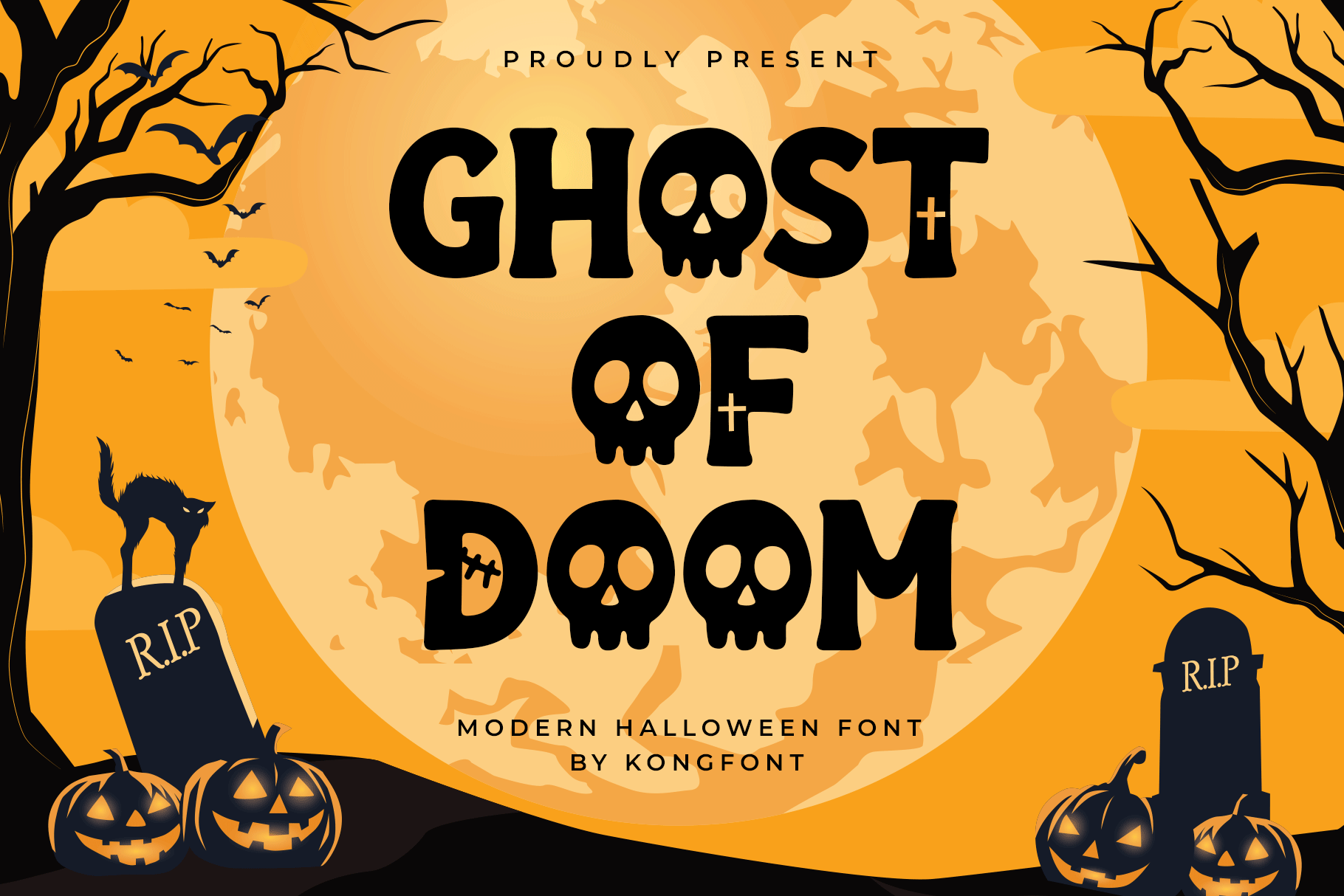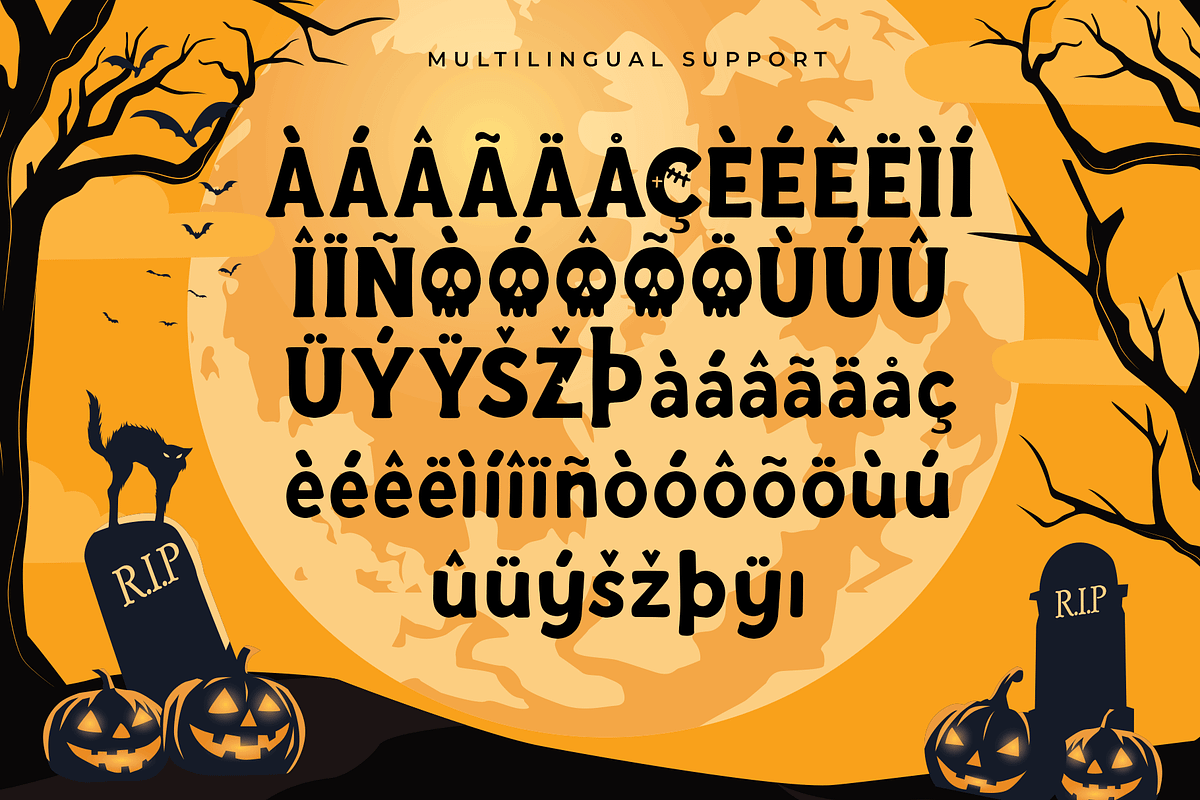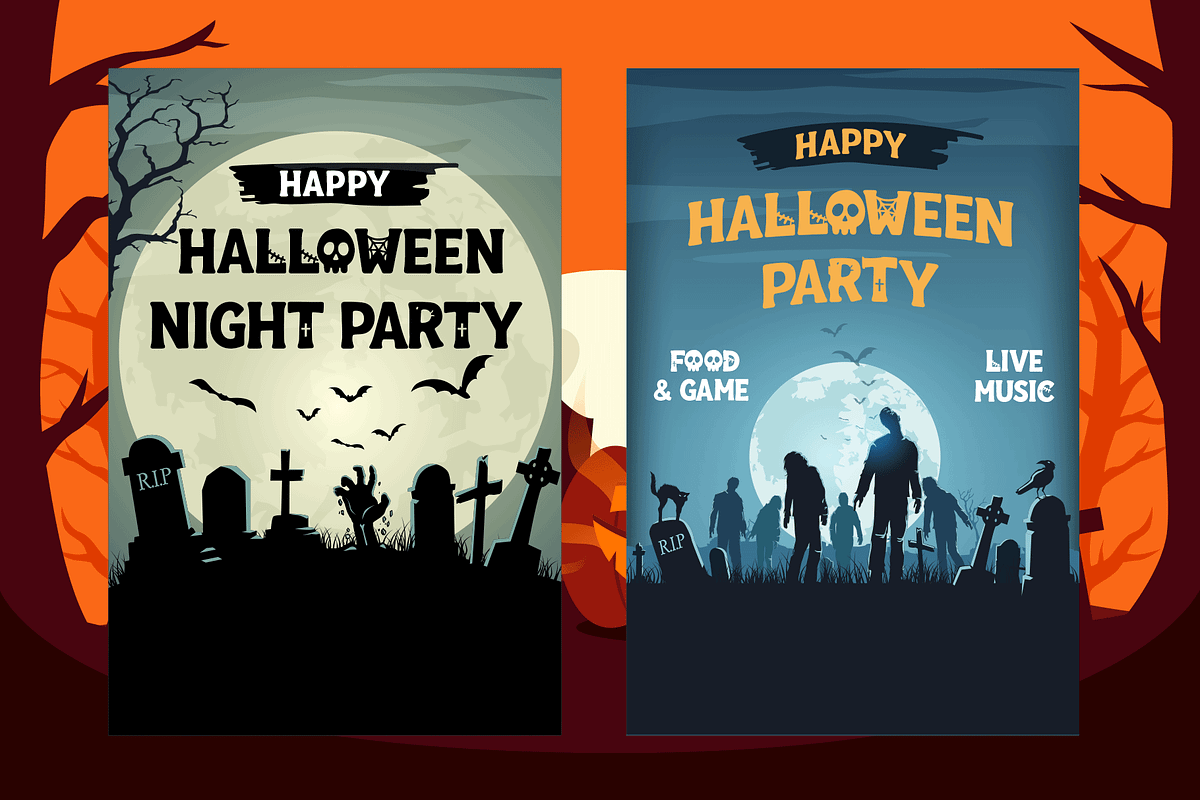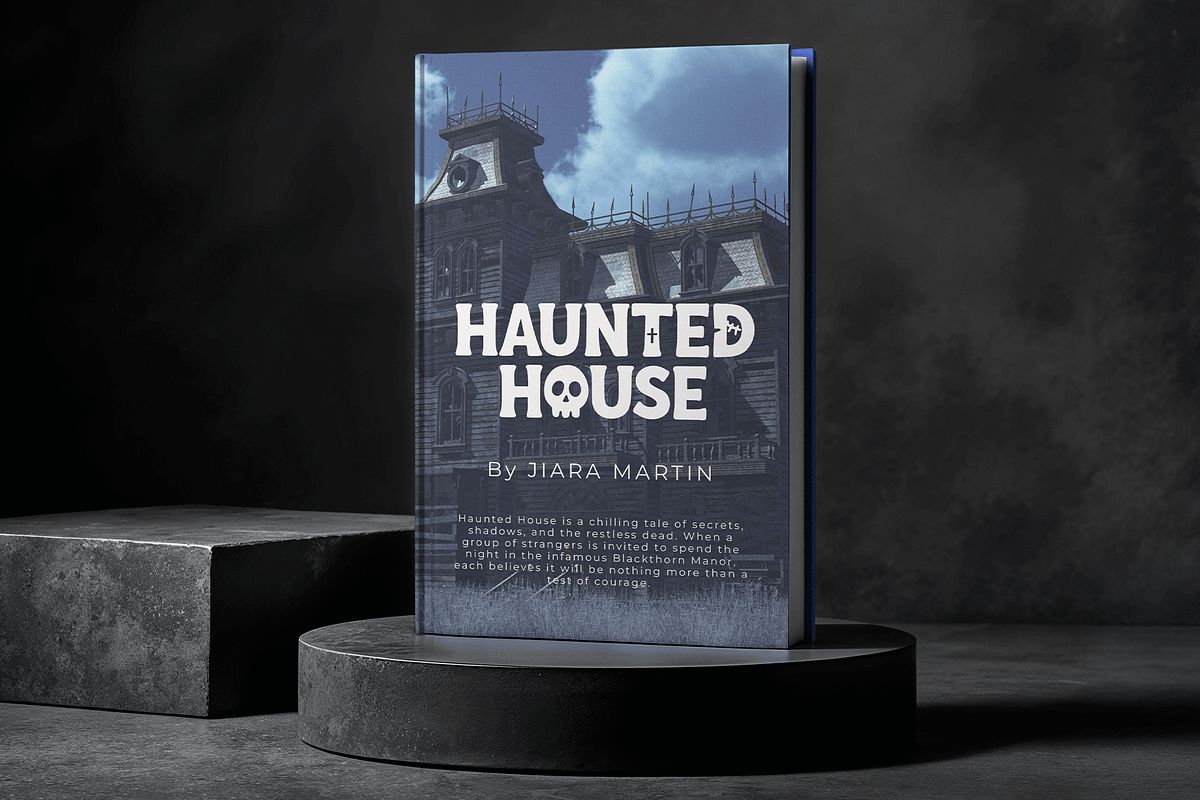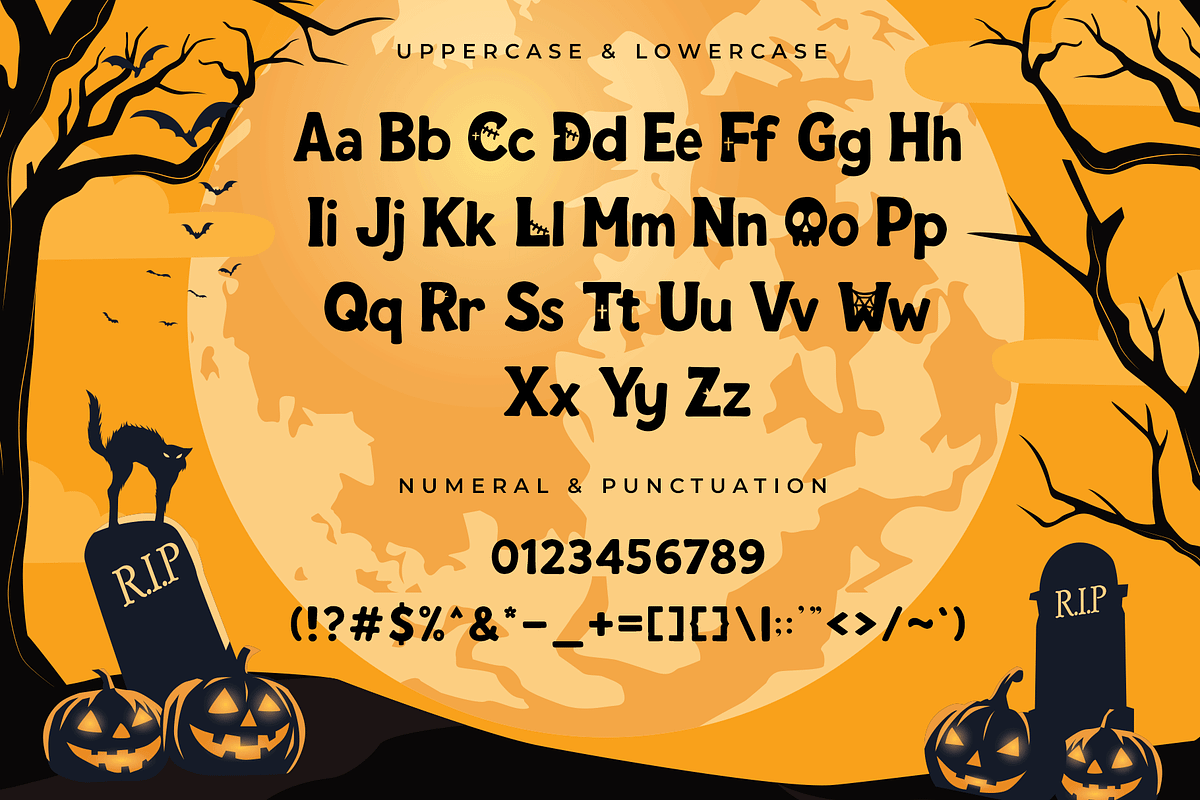
Ghost Of Doom–Modern Halloween Font
Ghost Of Doom – Modern Halloween Font
Ghost Of Doom is a modern Halloween font that combines eerie horror vibes with a stylish and contemporary look. Its bold strokes, spooky details, and haunting atmosphere make it the perfect choice for any Halloween-themed project.
Ideal for posters, invitations, logos, packaging, banners, and seasonal branding, this font brings a ghostly yet modern touch to your work. Whether you’re designing for a haunted house event, a spooky party, or horror-inspired branding, Ghost Of Doom ensures your message makes a chilling impact.
The font comes with uppercase, lowercase, numbers, punctuation, and multilingual support, giving you full creative flexibility for both digital and print designs.